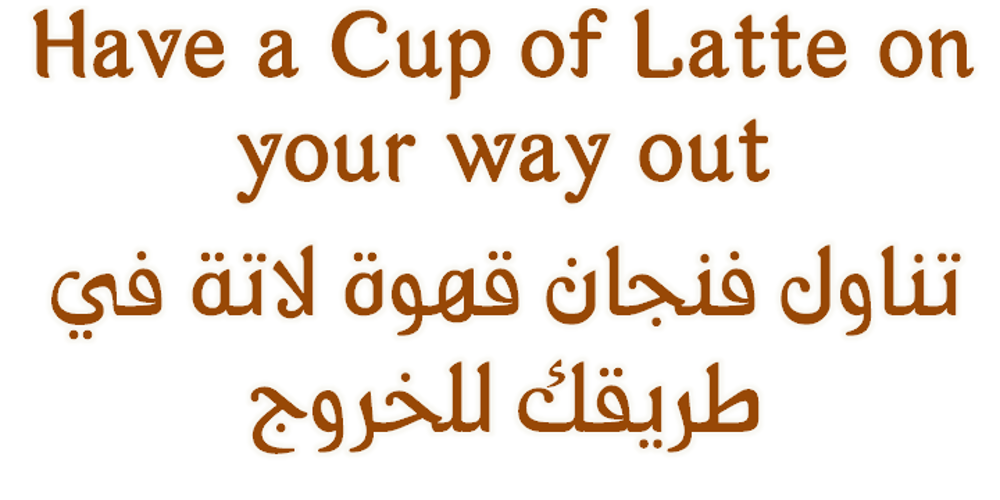
Arabetics Latte
Arabetics Latte font
Arabetics Latte Font Family was designed by Saad D. Abulhab and published by Arabetics. Arabetics Latte contains 6 styles and family package options. Arabetics Latte is a Latin Serif typeface with a comprehensive support for the Arabetic scripts, including Quranic texts. While its seemingly-idiosyncratic Latin design eliminates the excessive usage of serifs and offsets the visual effects of several geometrically-intense glyphs, its Times Romanesque proportions gives a full nod to the beginnings of Latin types and produces an overall stable look-and-feel of a classical Serif style, making it suitable for both text and display applications. Liberal spacing is maintained throughout to match that of the Arabic text and is further supplemented by a careful implementation of a typical Latin kerning. The overall design of this font, including metrics and dimensions, was intended to make its Latin harmonize well with most other Arabetics foundry fonts. Arabetics Latte fully supports MS 1252 Western and 1256 Arabic code pages, in addition to all the transliteration characters required by the ALA-LC Romanization tables. Users can either select an accented character directly or form it by keying the desired combining diacritic mark following an unaccented character. For Arabic, it fully supports Unicode 6.1, and the latest Arabic Supplement and Extended-A Unicode blocks. The Arabic design of this font family follows the Mutamathil Taqlidi design style with connected glyphs, emphasizing vertical strokes to bring added harmony, and utilizing slightly varying x-heights to match that found in Latin. The Mutamathil Taqlidi type style uses one glyph for every basic Arabic Unicode character or letter, as defined by the Unicode Standards, and one additional final form glyph, for each freely-connecting letter of the Arabic cursive text. Arabetics Latte includes the required Lam-Alif ligatures in addition to all vowel diacritic ligatures. Soft-vowel diacritic marks (harakat) are selectively positioned with most of them appearing on similar high and low levels—top left corner—, to clearly distinguish them from the letters. Tatweel is a zero-width glyph. Keying the tatweel key (shft-j) before Alif-Lam-Lam-Ha will display the Allah ligature. Arabetics Latte includes both Arabic and Arabic-Indic numerals, in addition to generous number of punctuation and mathematical symbols. Available in both OpenType and TrueType formats, it includes two weights, regular and bold, each has normal, Italic, and left-slanted styles.